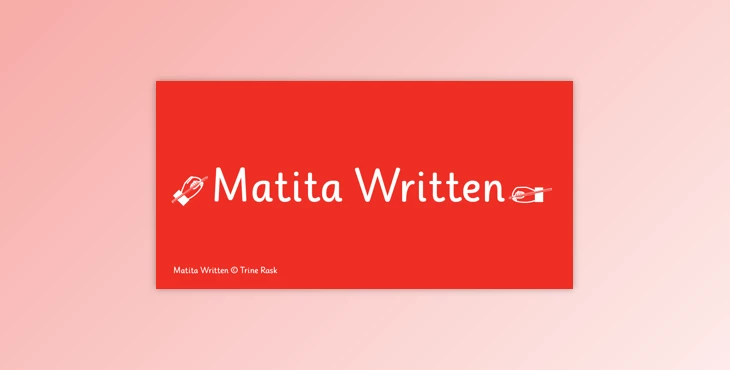
Matita Written Font Family: Matita Written marks the earliest release from a more significant type family developed between 2005 and 2019 with the idea of writing in mind. It's a solid sans serif that comes in two weights, as well as dotted instructional versions, with alternative glyphs based on various writing styles. It is ideal for teaching, teaching material, or simply typography. It has handwritten type families that are not childish and serve various purposes.
- Designers: Trine Rask